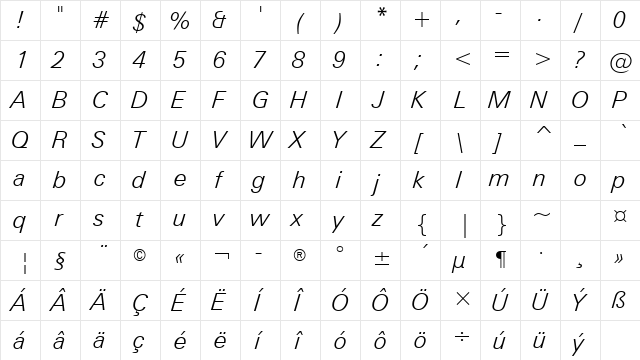
Zurich Lt L2 Light Italic
Design Context for Zurich Lt L2 Typeface
Zurich Lt L2 takes a measured approach to typography — its balanced proportions and neutral character make it a reliable workhorse for both digital and print work. The dynamic lean of this cut emphasises speed and emphasis in any layout. Its slender proportions lend an understated elegance to any composition.
Pro Tip: Use Zurich Lt L2 for emphasis, pull quotes, and subheadings where its slanted energy can add rhythm to the layout.